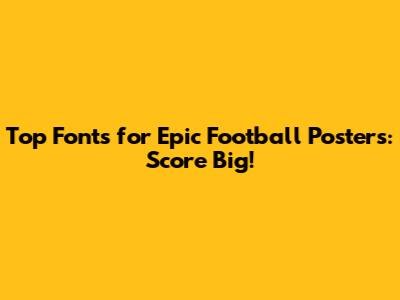
- Contrast is Key: Pair a bold sans-serif with a lighter serif for balance.
- Hierarchy Matters: Use different font sizes and weights to guide the eye.
- Limit Your Choices: Stick to two or three fonts to maintain a cohesive look.
Creating a football poster that captures the energy and excitement of the game requires more than just a great design; it demands the perfect font. Choosing the right font can transform your poster from bland to bold, amateur to awesome. A well-chosen font not only enhances readability but also conveys the overall mood and message, making your poster stand out and grab attention. So, if you're looking to create a poster that truly scores, let’s dive into some of the best font options available.
Why Font Choice Matters for Football Posters
When it comes to designing football posters, the font you select plays a crucial role in conveying the energy, excitement, and spirit of the game. Think about it – a generic, uninspired font can make even the most visually stunning design fall flat. A great font, on the other hand, amplifies the impact of your visuals and helps to capture the attention of your target audience. It’s not just about aesthetics; it’s about communication.
Readability is Key: In the heat of the moment, fans need to be able to quickly grasp the essential information on your poster – game dates, team names, and promotional details. A clear, legible font ensures that your message gets across without any confusion. Imagine trying to decipher a poster with an overly decorative or condensed font from a distance – frustrating, right? Opting for a font that prioritizes readability, especially in headlines and key information, is paramount.
Setting the Tone: Different fonts evoke different emotions and associations. A bold, sans-serif font like Impact or Bebas Neue can convey strength, power, and intensity – perfect for showcasing the competitive nature of football. Conversely, a script or serif font might communicate tradition, history, or a more sophisticated tone, which could be suitable for commemorative posters or events. Understanding the emotional impact of different font styles allows you to align your font choice with the overall message and branding of your poster.
Creating Visual Hierarchy: A well-chosen font can also help establish a visual hierarchy within your design. By using different font sizes, weights, and styles, you can guide the viewer’s eye and highlight the most important information. For example, a large, bold font for the headline immediately grabs attention, while smaller, lighter fonts can be used for supporting details. This creates a clear and organized layout that enhances readability and ensures that key messages are easily noticed.
Standing Out from the Crowd: In a sea of posters and advertisements, your design needs to stand out to grab attention. A unique and eye-catching font can be a game-changer, helping your poster to cut through the noise and make a lasting impression. Consider using a font that reflects the unique personality of your team or event, or experiment with unconventional font pairings to create a distinctive look. Just be sure to maintain readability and avoid using overly trendy fonts that may become dated quickly.
Ultimately, your font choice should be a deliberate decision that supports your overall design goals and enhances the impact of your message. By carefully considering readability, tone, visual hierarchy, and distinctiveness, you can select a font that truly elevates your football poster and helps it to achieve its full potential.
Top Font Categories for Football Posters
To help you narrow down your search, let's explore some popular font categories that work exceptionally well for football posters:
Bold Sans-Serif Fonts
When you're designing a football poster, you want something that screams energy, power, and impact! That's where bold sans-serif fonts come into play. These fonts are the workhorses of the design world, offering clean lines, excellent readability, and a strong visual presence that grabs attention. Think of them as the quarterbacks of your typography team – reliable, assertive, and always ready to make a statement.
One of the biggest advantages of using bold sans-serif fonts is their versatility. They work well in a variety of contexts, from headlines and subheadings to body text and captions. This makes them ideal for creating a cohesive and visually appealing design. Plus, their clean and modern aesthetic ensures that your poster looks professional and up-to-date.
Impact: As the name suggests, Impact is a font designed to make a statement. Its condensed letterforms and heavy weight give it a powerful and assertive presence, perfect for headlines and titles. The bold, condensed nature of Impact allows you to convey a sense of urgency and excitement, making it an excellent choice for announcing game dates, scores, or special promotions. However, due to its strong personality, it's best used sparingly and paired with more neutral fonts for body text.